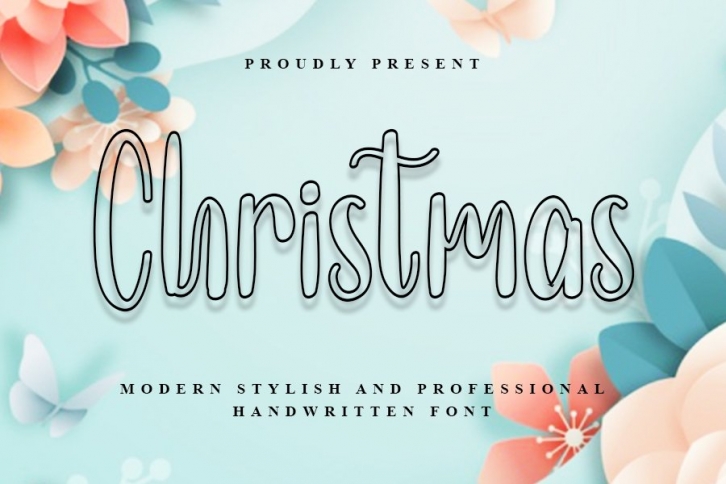
Christmas is a trendy and unique font with an authentic style. It was designed by InermediaSTUDIO and it's a great choice for creative people who need such a font. It was released on December 25, 2020 and the file size is 11.67 MB. Christmas will add an organic vibe to any design idea!